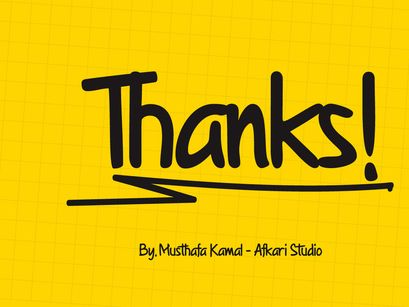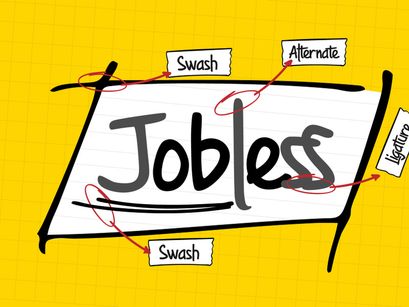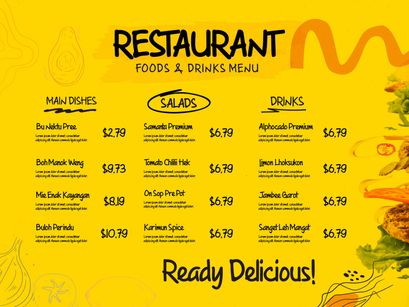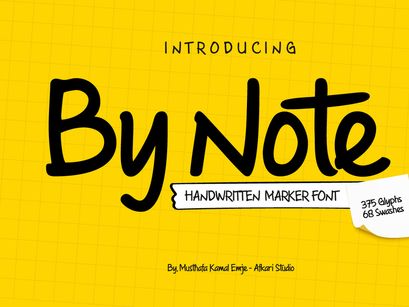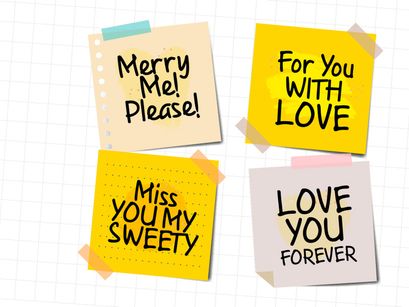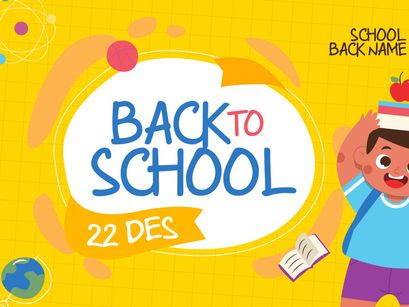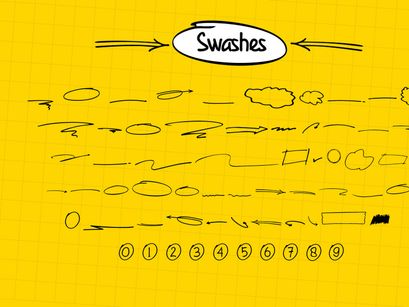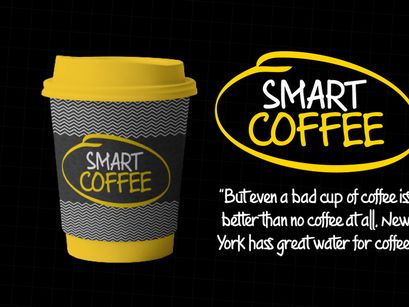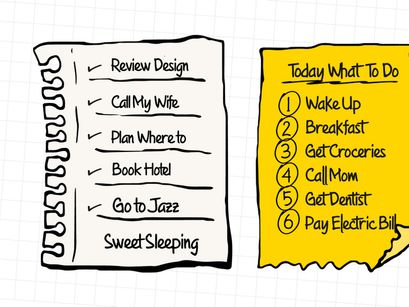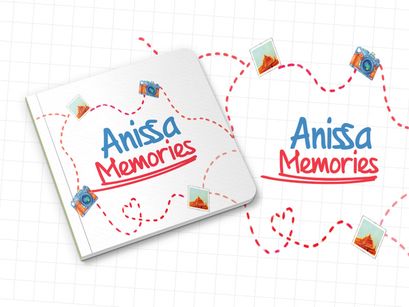
By Note Handwritten Marker Note Font
By Note
ByNote-Swash
By Note
ByNote-Swash
By Note
By Note is a handwritten marker note font that's created with a natural and unique style. A Note Handwritten note font is suitable for various design graphics projects and can be used in any size.
This Note font is also great for digital notes, quotes design, book cover, logotype, poster, food menu, t-shirt, scrapbooking, comic illustration, magazine titles, kids projects and much more!
• Uppercase, Lowercase, Number, and Punctuation
• Special alternates and ligatures
• Mültîlíñgúãl Sùppört for; ä ö ü Ä Ö Ü ß ¿ ¡